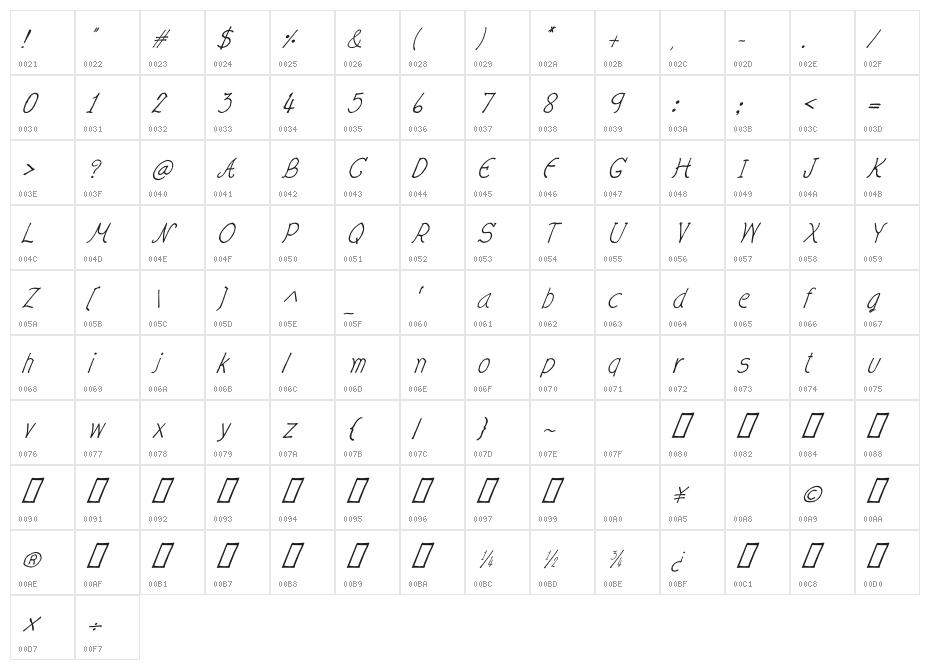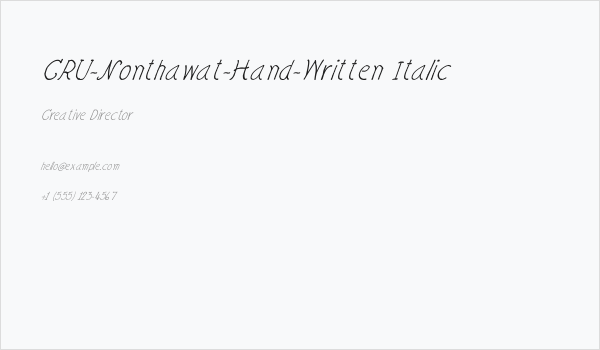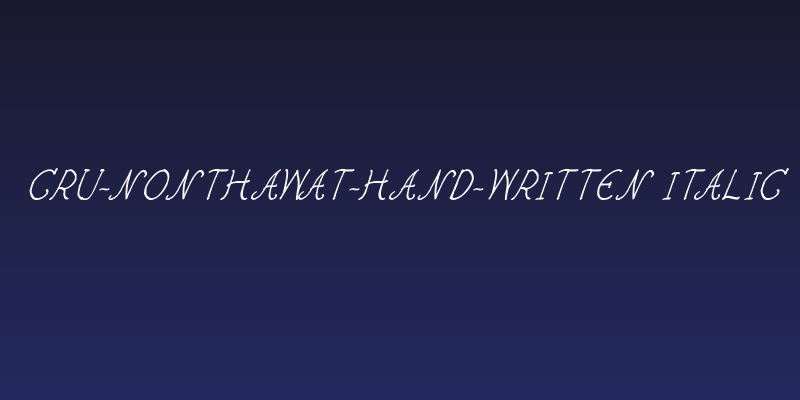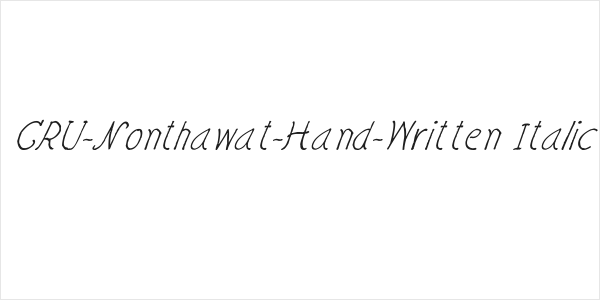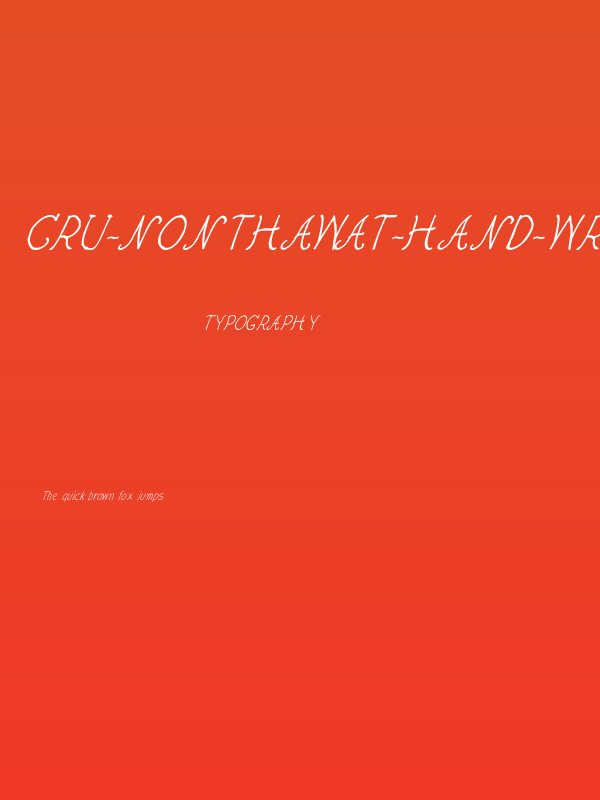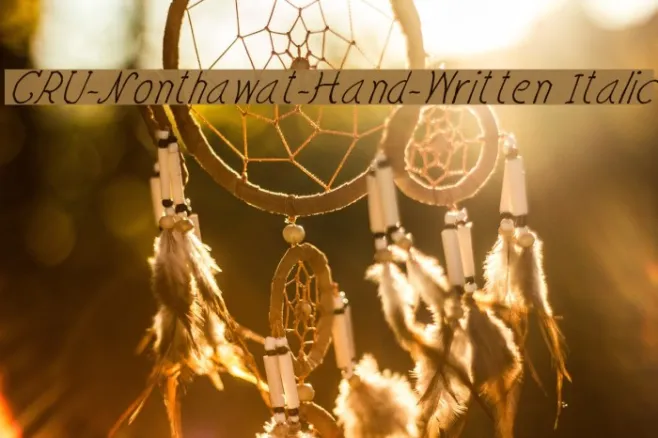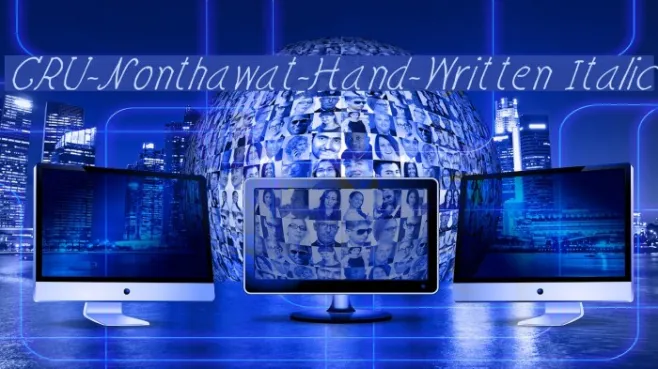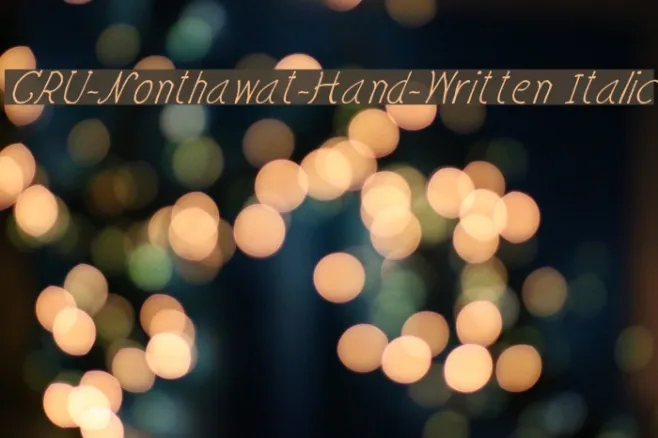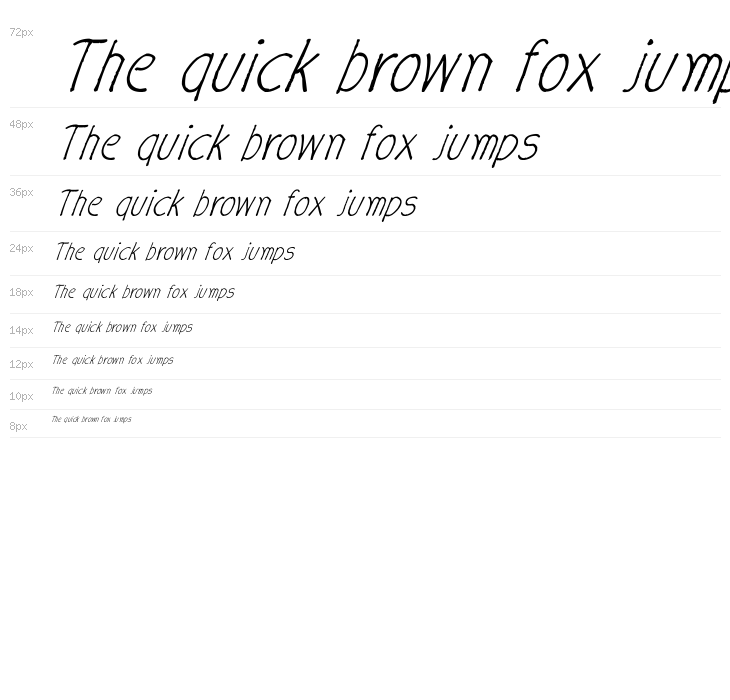
CRU-Nonthawat-Hand-Written Italic Font
CRU-Nonthawat-Hand-Written Italic Description
This font features a handwritten style with an italic slant, giving it a casual and personal touch. The letters are fluid and slightly uneven, mimicking the natural flow of handwriting. The uppercase and lowercase letters maintain a consistent style, with some characters having unique flourishes. The numerals are clear and legible, matching the overall aesthetic. Special characters are included, maintaining the same handwritten feel. This font is ideal for projects that require a personal or informal tone.
| Overall Style | Casual, Personal |
| Use Case | Headlines, Informal text, Personal projects |
| Proposed Projects | Ideal for personal notes, invitations, greeting cards, and informal branding. |